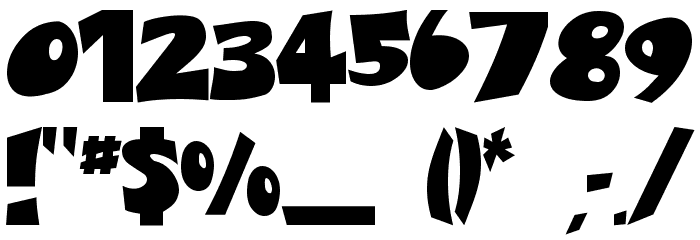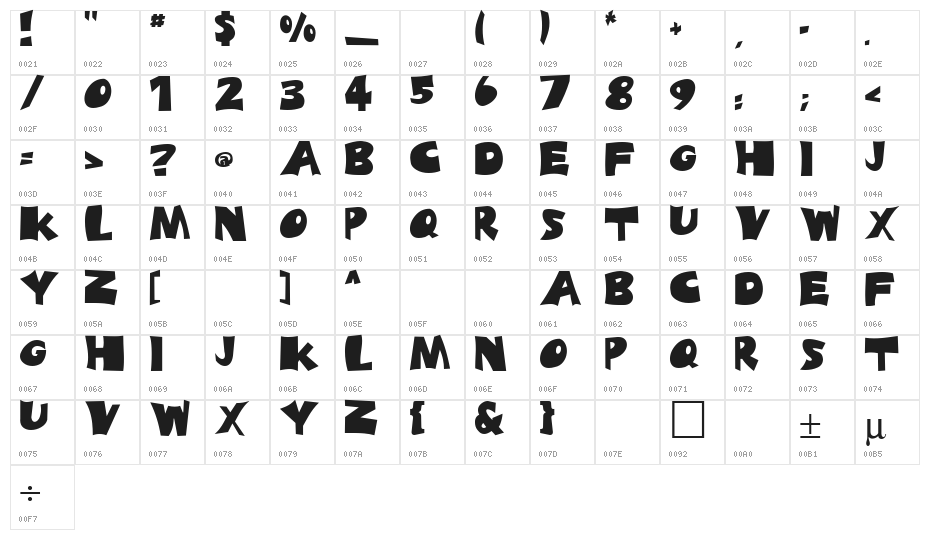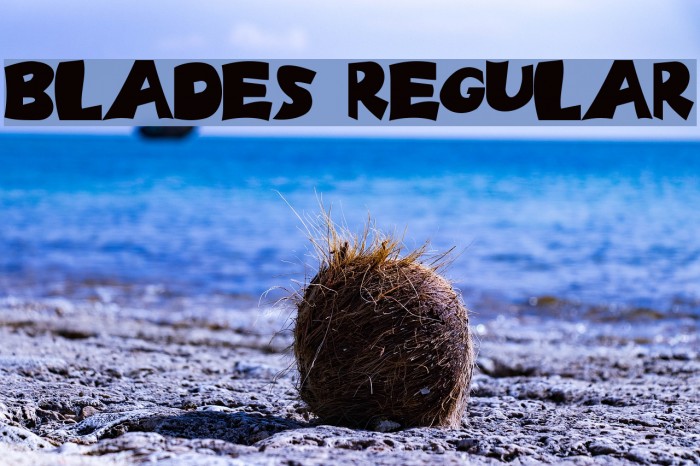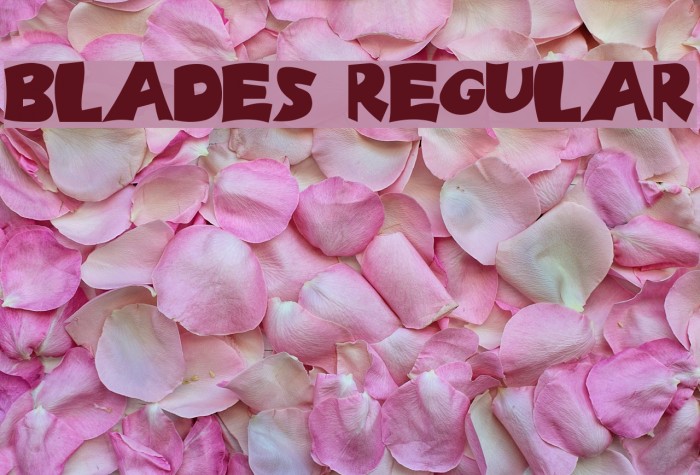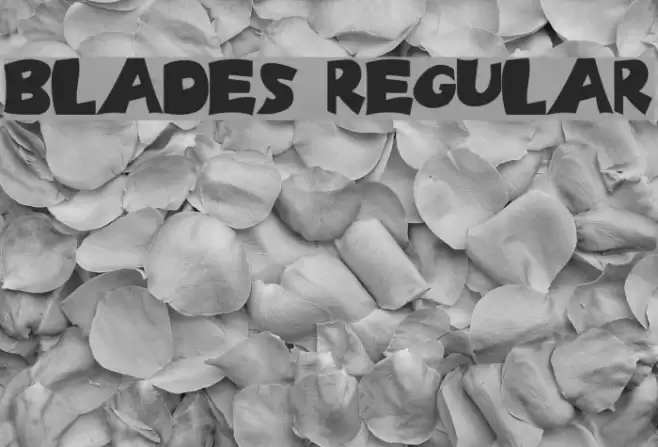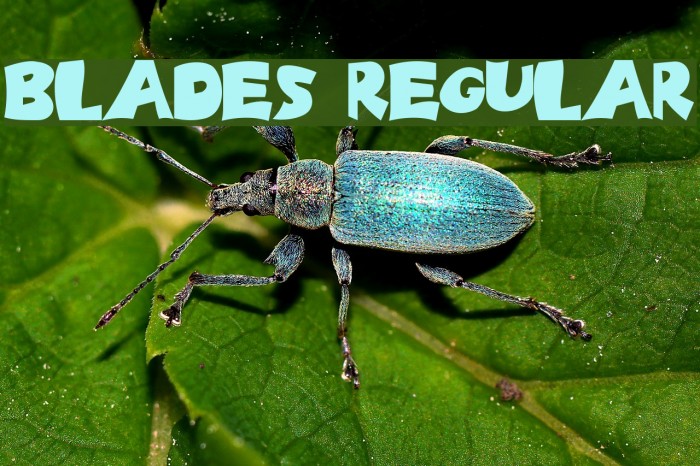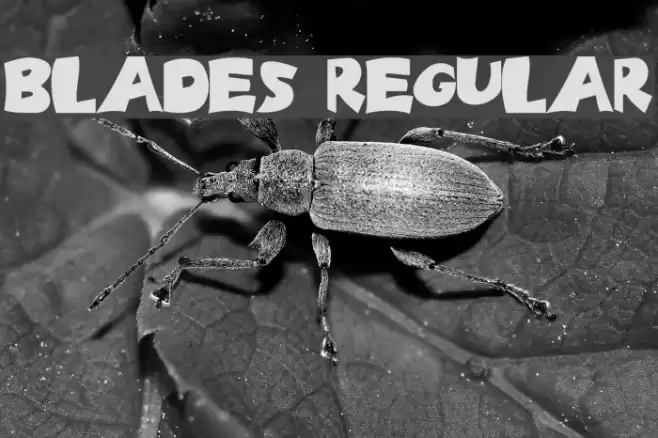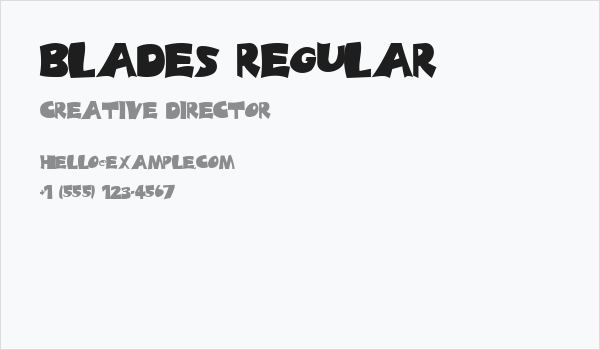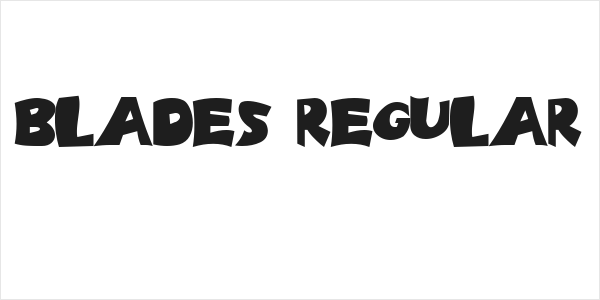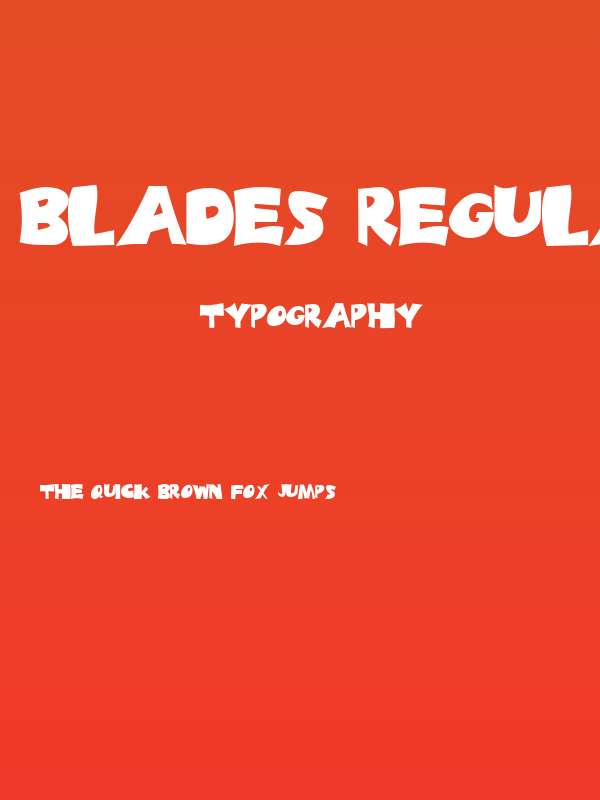
Blades Regular Font
Blades Regular Description
This font features a bold and dynamic style with sharp, angular edges that give it a striking and energetic appearance. The letters are designed with a playful yet aggressive flair, making them stand out with a sense of movement and intensity. The uppercase and lowercase characters maintain a consistent design, with exaggerated angles and varying stroke widths that add to the font's unique character. The numbers and special characters follow the same design principles, ensuring a cohesive look across all elements. This font is ideal for projects that require a bold statement and a touch of creativity.